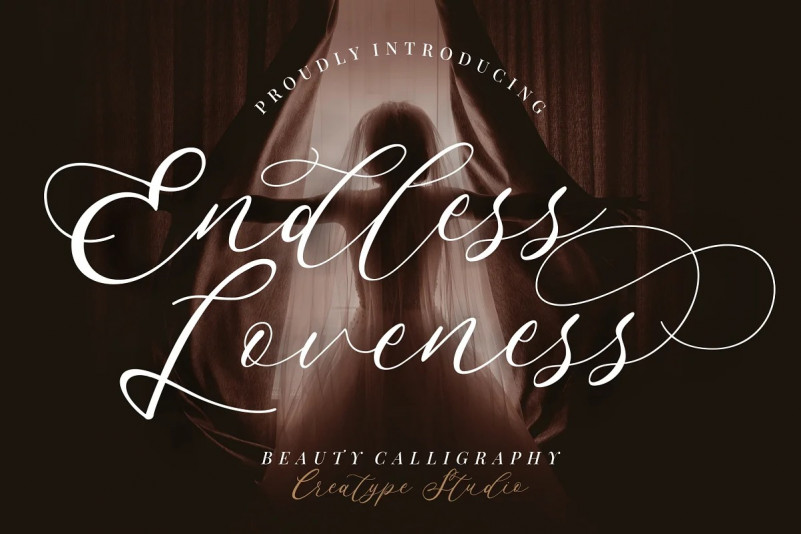
Endless Loveness Font
Endless Loveness Calligraphy Font
It’s an script font that comes with great alternative characters. mix of copper calligraphy in a handlettering style. This typeface is perfect for branding projects, logo, wedding designs, social media posts, advertisements, product packaging, product designs, label, photography, watermark, invitation, stationery and any projects that need handwriting taste.